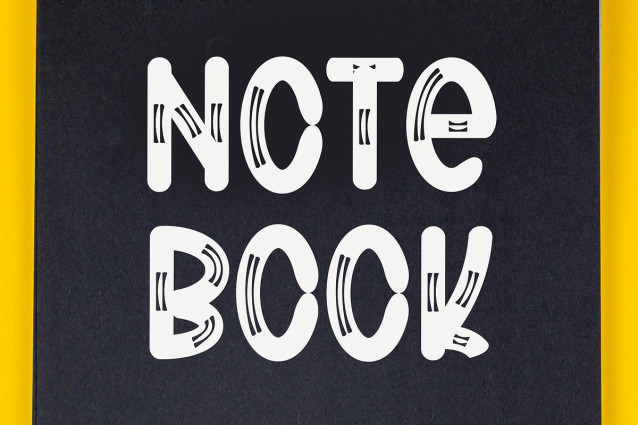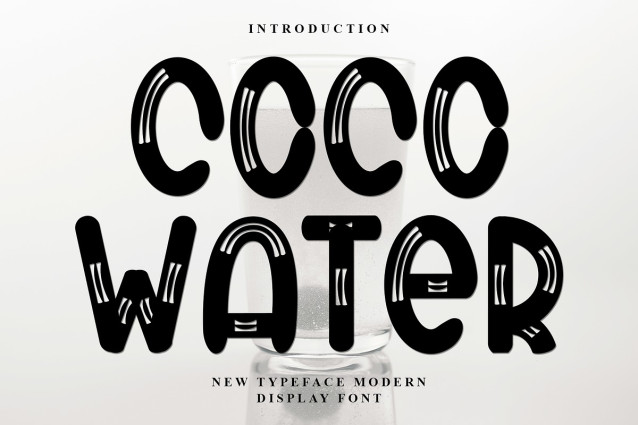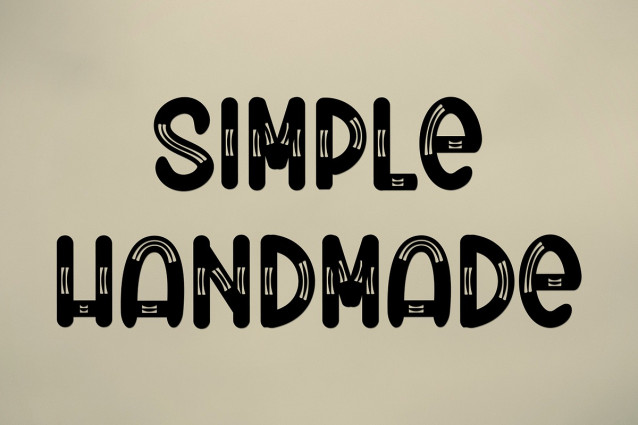
Coco Water Font
Coco Water Font is a beautiful and eye-catching font designed with a soft, unique touch. Its distinctive strokes give it a special character, making it meaningful and versatile for future use. With various characters, it’s perfect for design projects, crafts, and other creative works.